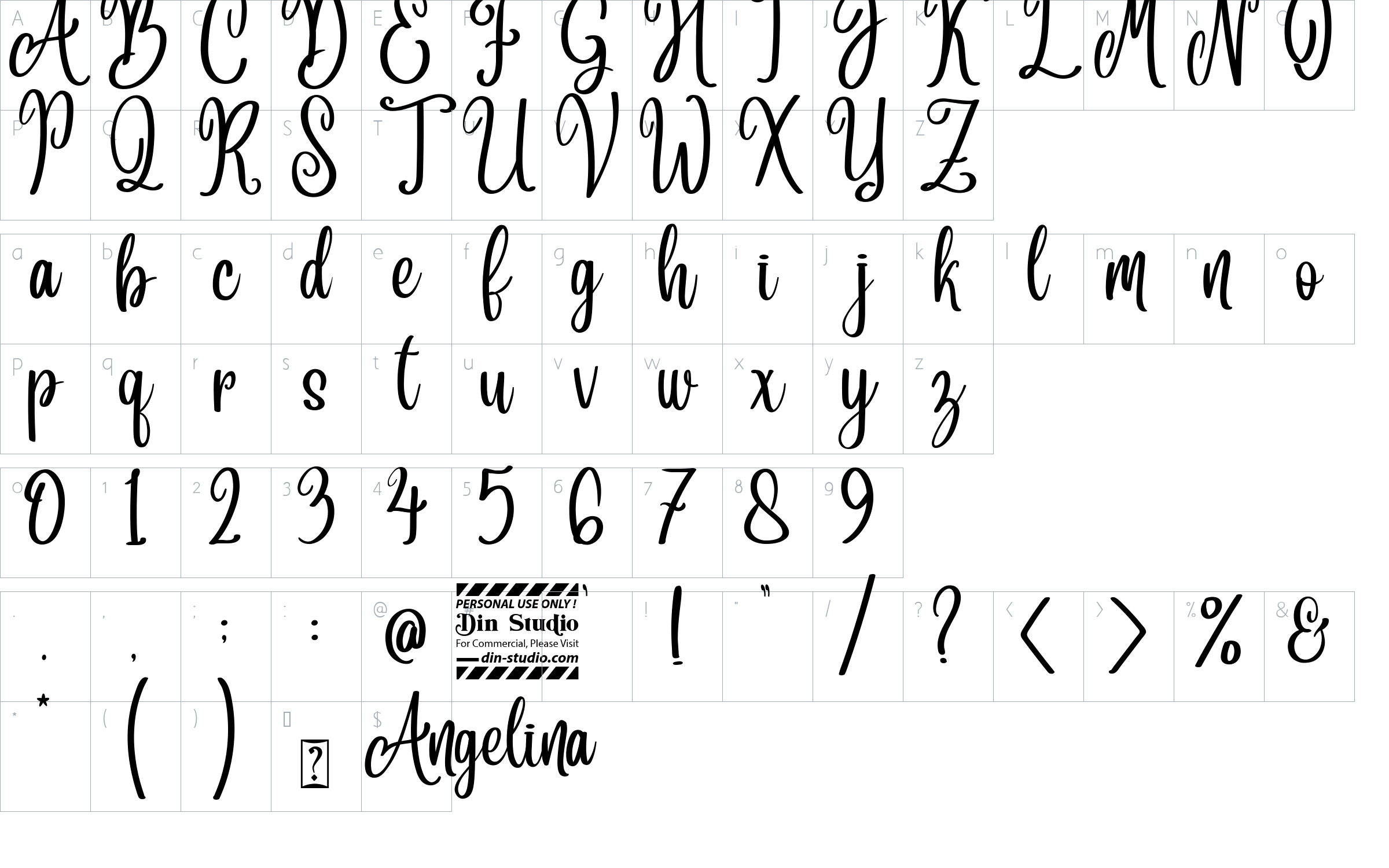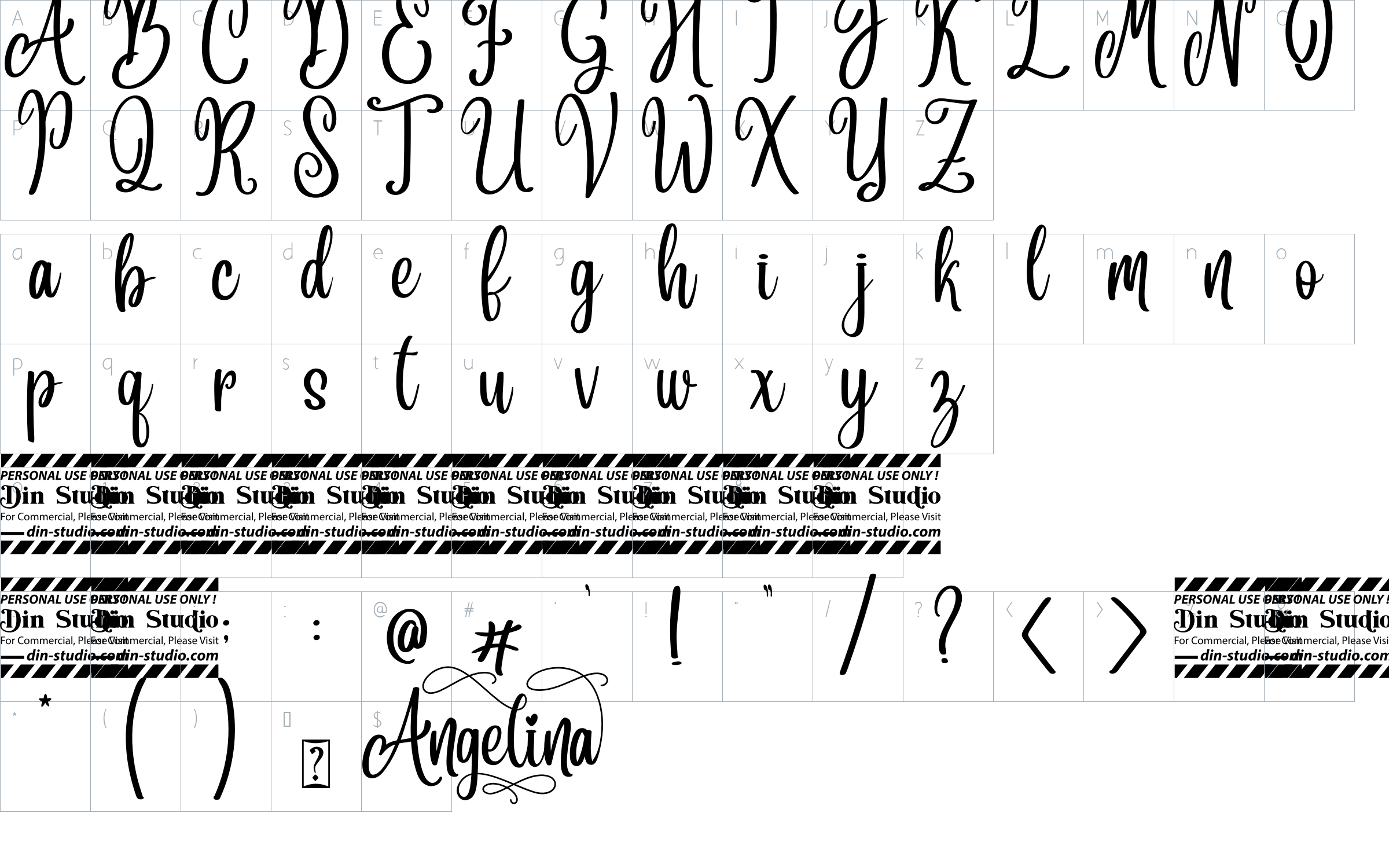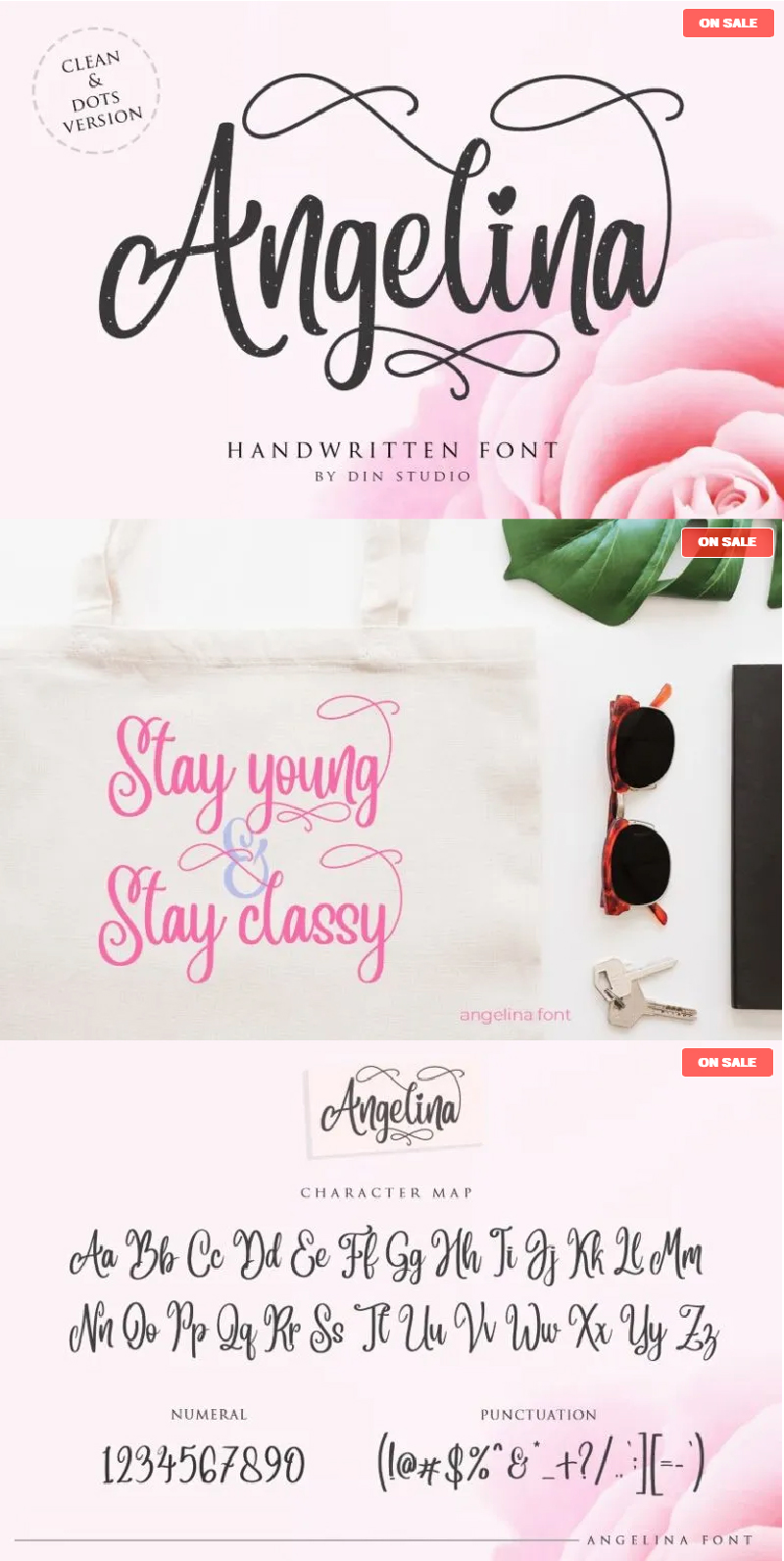
Angelina Font
About Angelina
Angelina script is a stunning handwritten font created by Din Studio. With a natural and modern style, this font is suitable for your project designs. Angelina is created to help you make a typeface as if it is real handwriting. This font includes a full set of hand-written uppercase and lowercase letters, numerals, punctuations, and ligatures.
Angelina font comes with a perfect line perfectly used for various purposes, like weddings, brandings, logotypes, quotes, and more. See the previews above to get some inspiration on how to use them. Happy designing!
Features includes:
- Beautiful Ligatures
- Stylistic Alternates (b, d, f, g, h, i, j, k, l, t, y, z)
- Lovely Swashes (a-z)